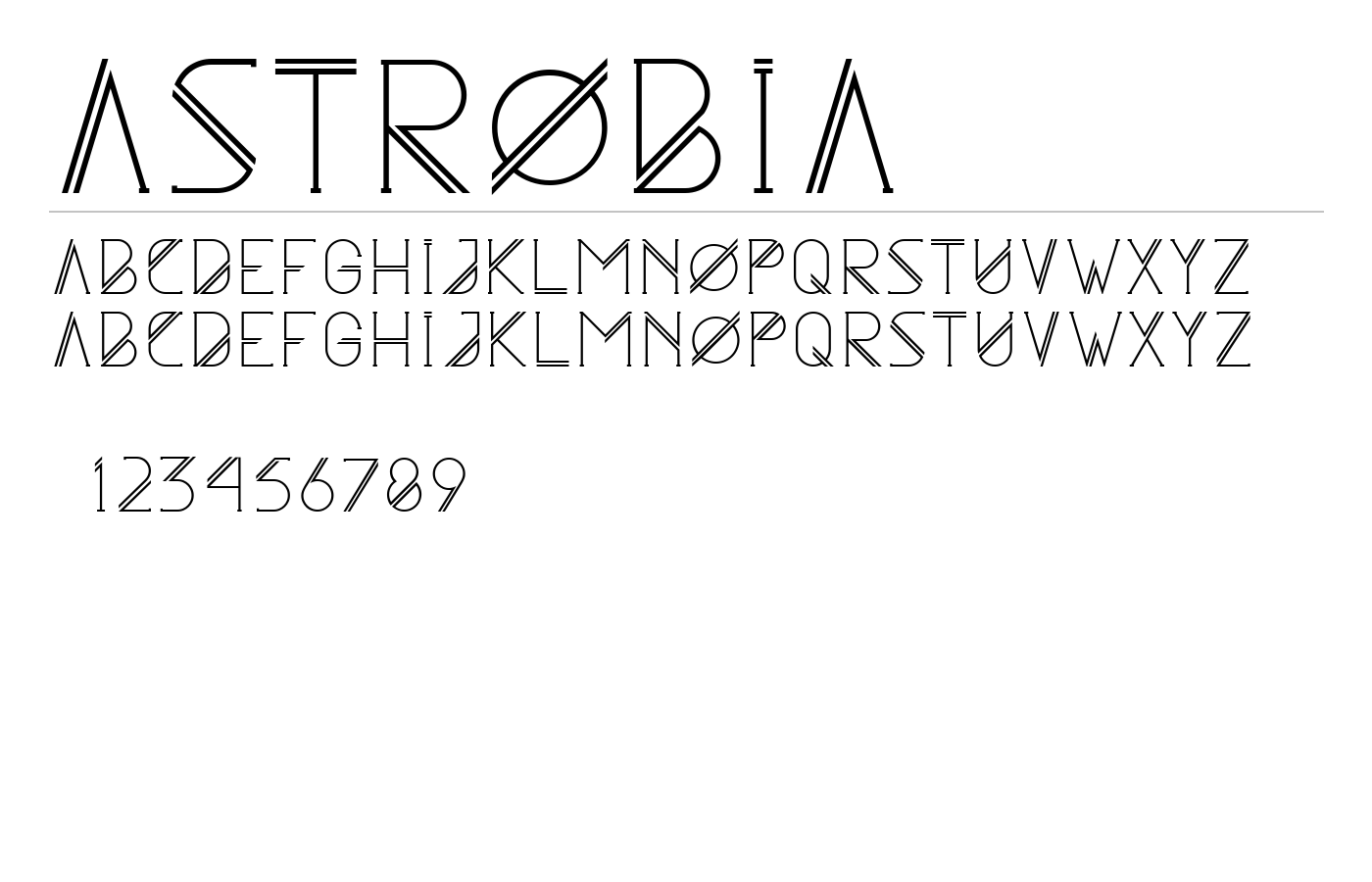
Astrobia is a sleek, modern sans serif font with a distinctive geometric and futuristic style, featuring thin, clean lines and sharp angles. Its elegant, airy letterforms with unique diagonal cuts and high contrast strokes make it ideal for branding, headlines, and design projects aiming for a sophisticated, space-age or avant-garde look. This font works best in large formats where its intricate details and stylish personality can truly stand out.
Astrobia Font
About Astrobia Font
| Font family | Astrobia Font |
| Designer | Tezar Tantular |